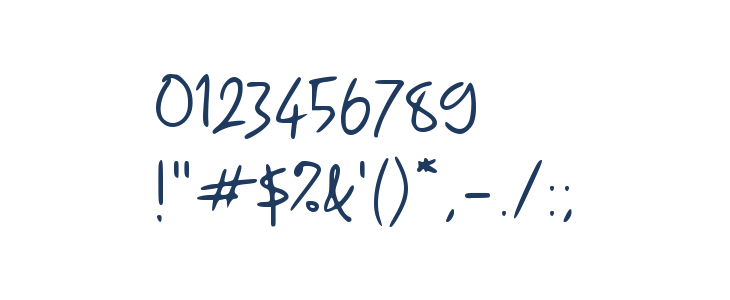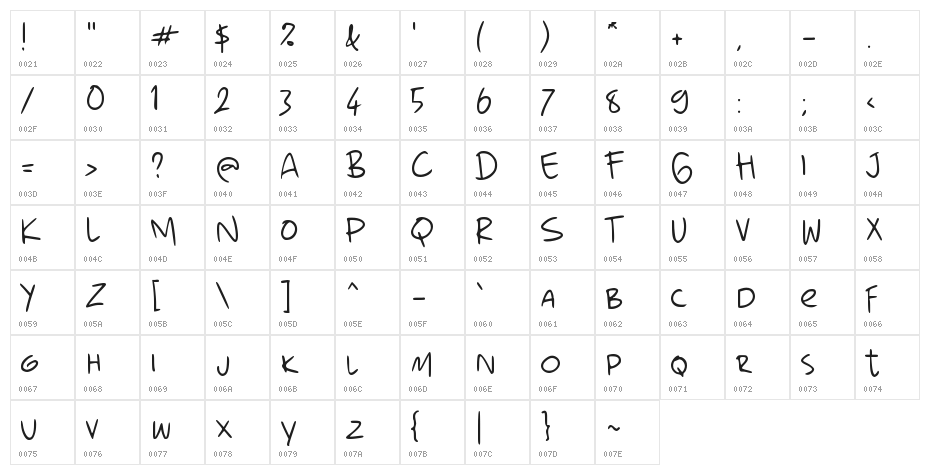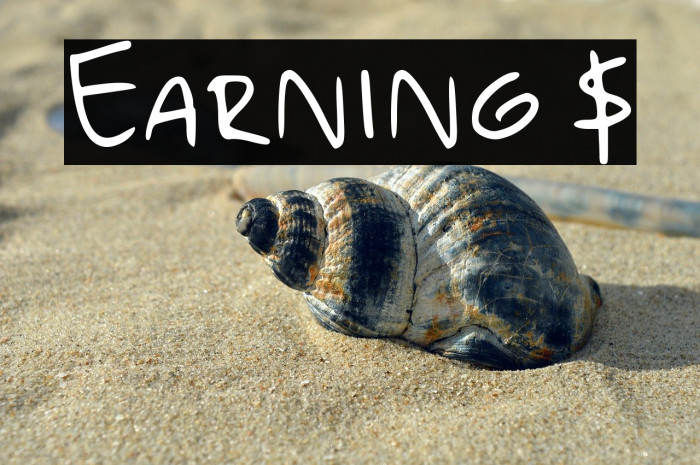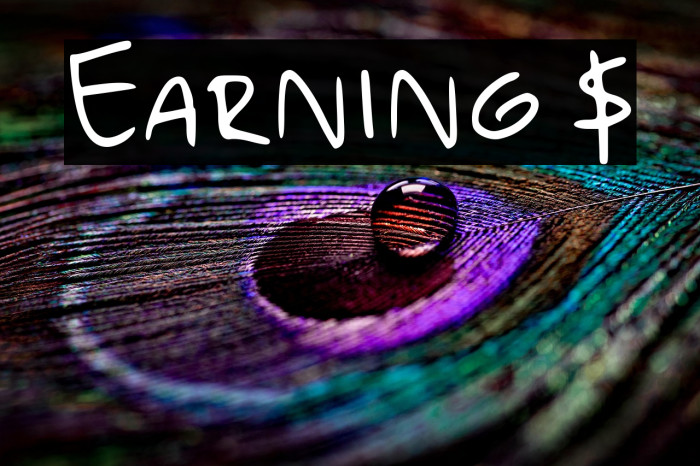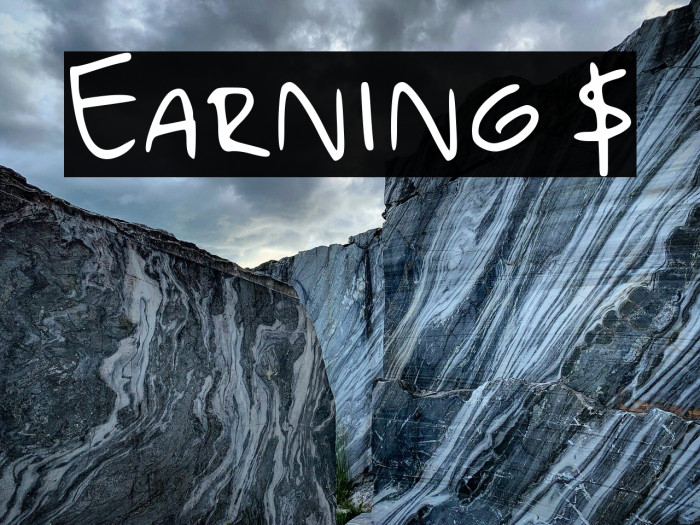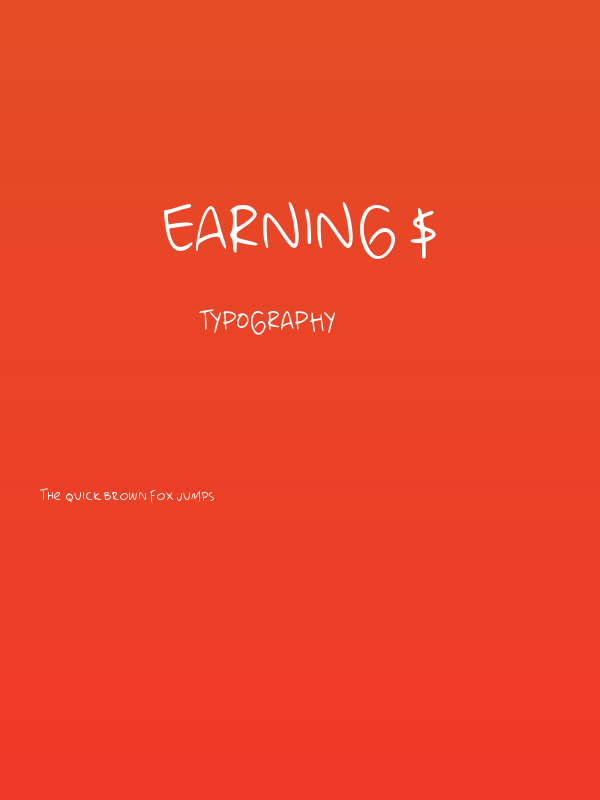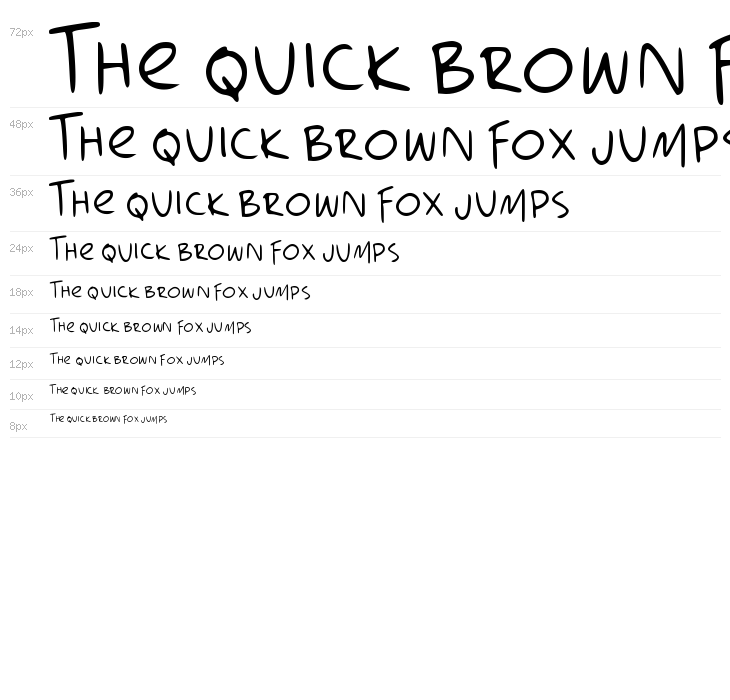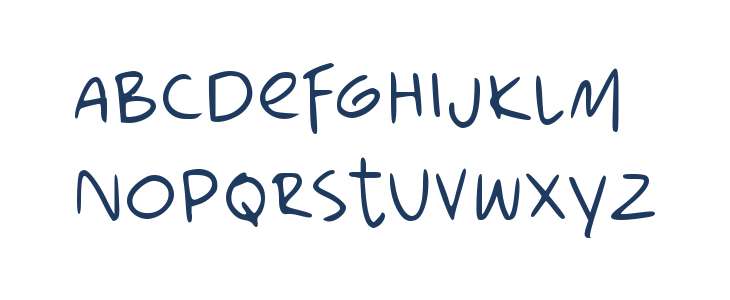
Earning $ Font
Earning $ Description
This font exhibits a playful and casual handwritten style, characterized by its irregular strokes and slightly tilted characters. The uppercase and lowercase letters maintain a consistent flow, with rounded edges and a natural, organic feel. The numerals and special characters follow the same informal aesthetic, making the font suitable for projects that require a personal touch. Its overall appearance is approachable and friendly, ideal for conveying warmth and creativity.
Overall StyleCasual, Playful
Use CaseHeadlines, Informal text, Creative projects
Proposed ProjectsIdeal for greeting cards, children's books, personal blogs, and creative branding projects.